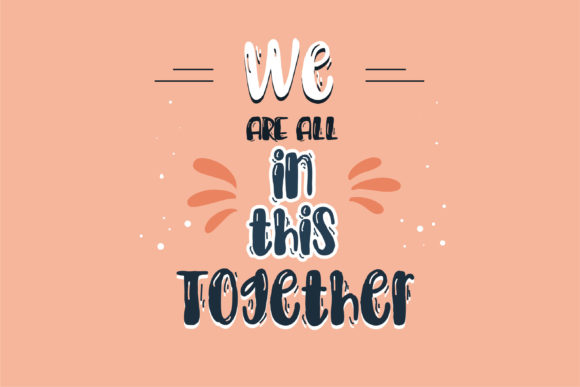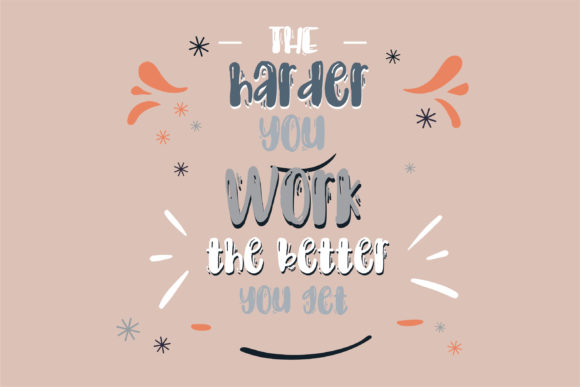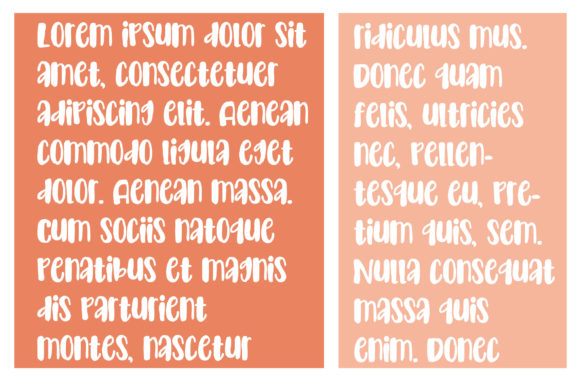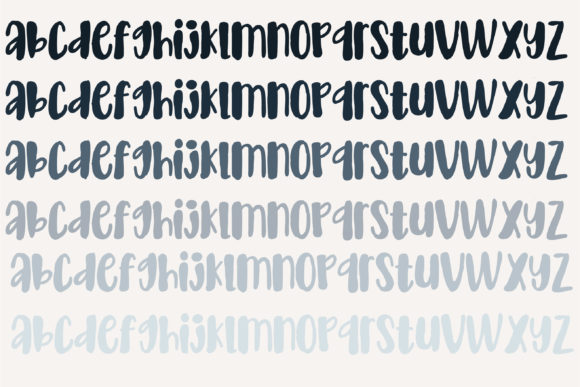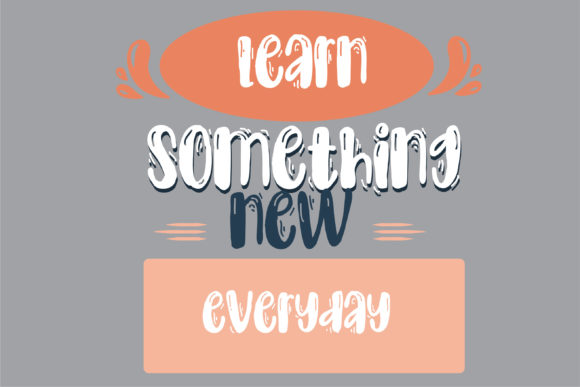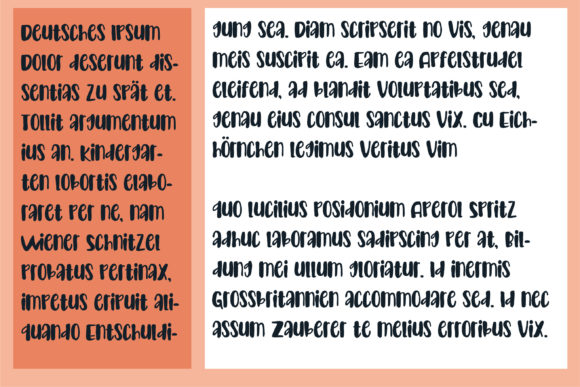
Introduction to Nightcrawler Font Font
Fonts play a crucial role in design, and the Nightcrawler Font font is a typeface that brings both character and versatility to any project. Whether you’re working on a branding project, a website, or a print design, the Nightcrawler Font font offers a unique style that can elevate your work.
| 📌 Font Name | Nightcrawler Font |
| 👤 Author | Illustration Ink |
Nightcrawler is a unique and bouncy display font with a bit of texture throughout.
It will look fantastic on banners, covers, or anything that needs to stand out .
Key Features of Nightcrawler Font Font
Why Choose Nightcrawler Font Font?
The Nightcrawler Font font is more than just a typeface – it’s a design tool that helps you communicate your message with style and clarity. Its unique character set and versatile design make it suitable for a wide range of applications, from elegant invitations to bold headlines.
With its carefully crafted letterforms and balanced proportions, the Nightcrawler Font font ensures readability and visual appeal across all mediums.
What makes Nightcrawler Font font special?
The Nightcrawler Font font stands out with its unique design, exceptional readability, and versatility across various design applications.